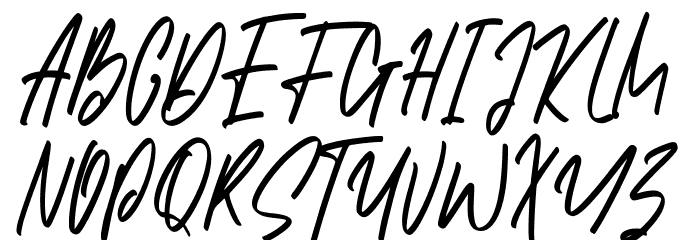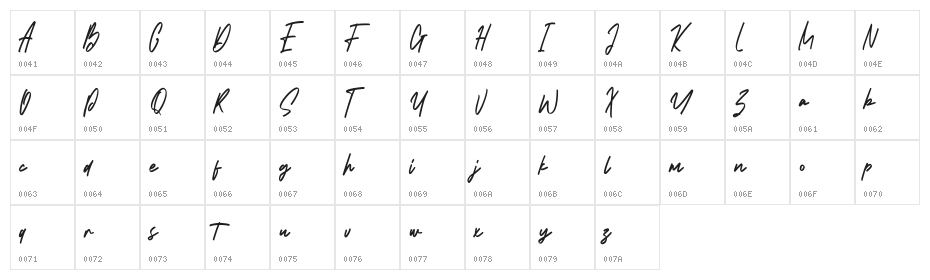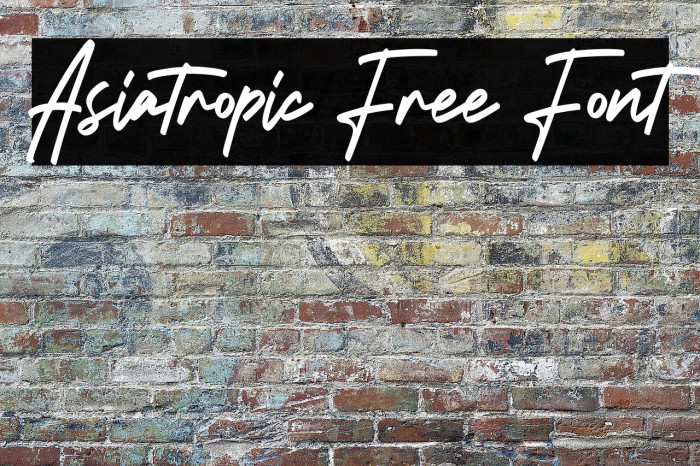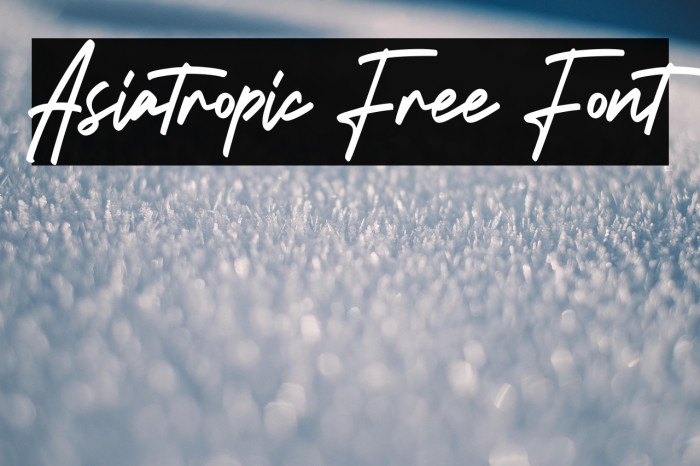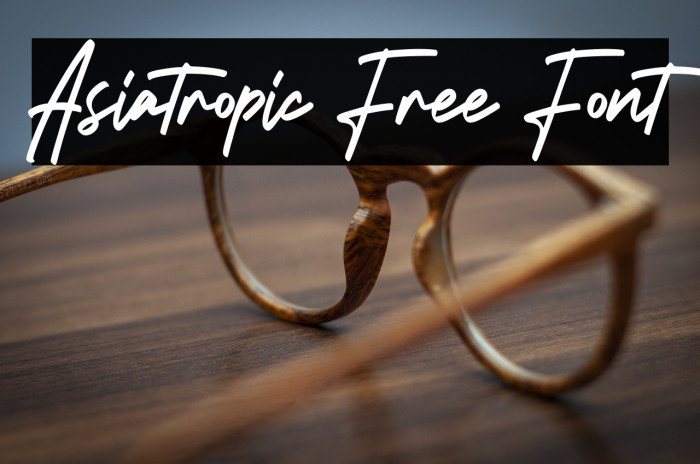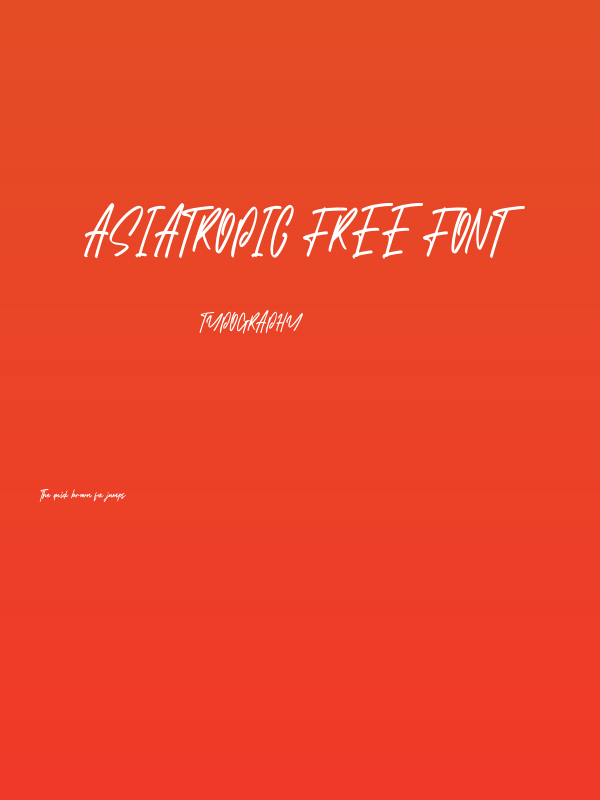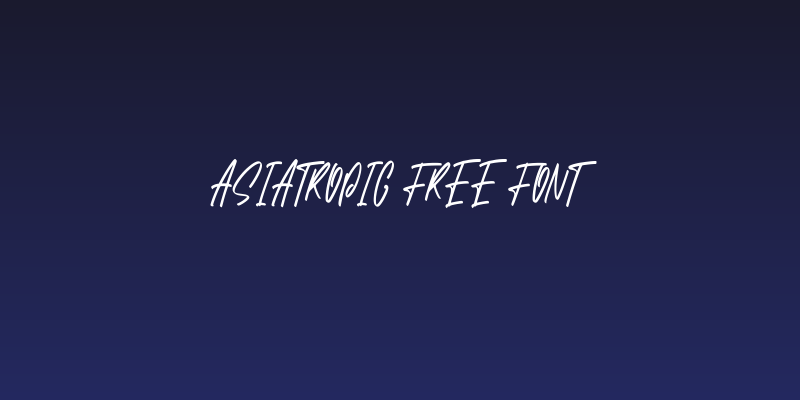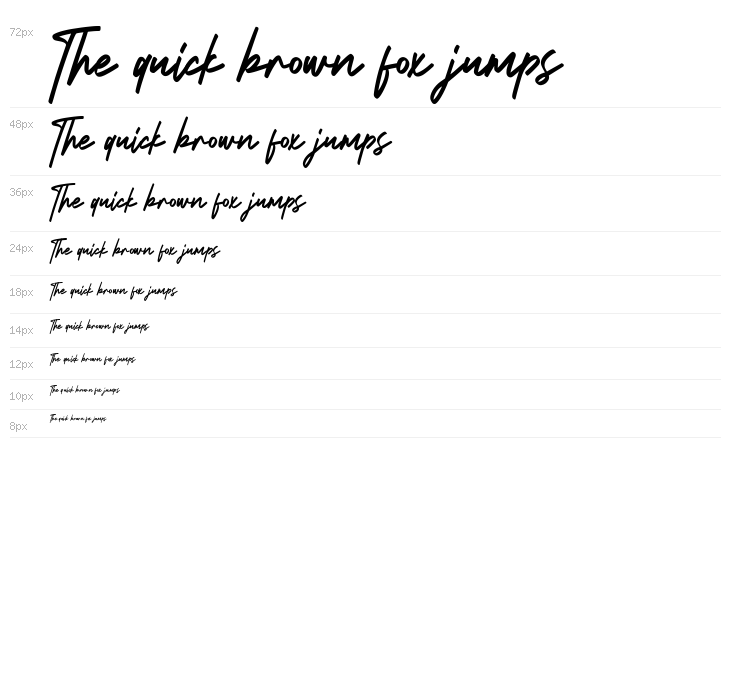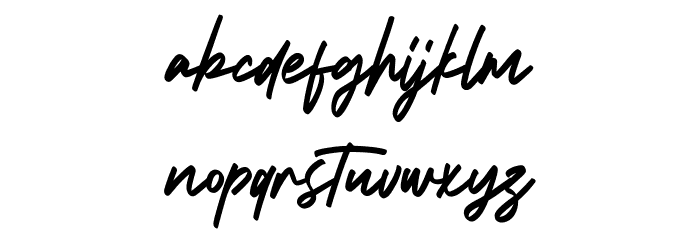
Asiatropic Free Font Font
Asiatropic Free Font Description
This font features a dynamic and energetic handwritten style, characterized by its fluid and expressive strokes. The letters are slightly slanted, giving a sense of movement and spontaneity. The uppercase and lowercase letters maintain a consistent flow, with some variations in stroke thickness that add to its lively appearance. The numbers and special characters are crafted with the same attention to detail, ensuring a cohesive look across all elements. This font is ideal for projects that require a personal touch, such as invitations, greeting cards, or branding materials that aim to convey creativity and individuality.